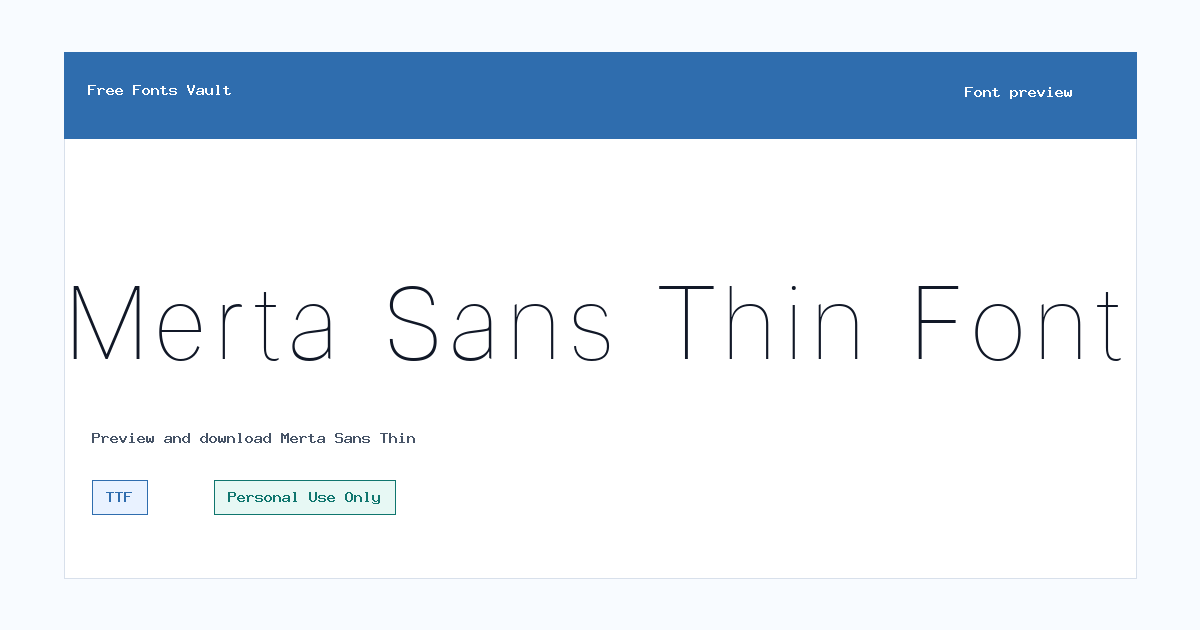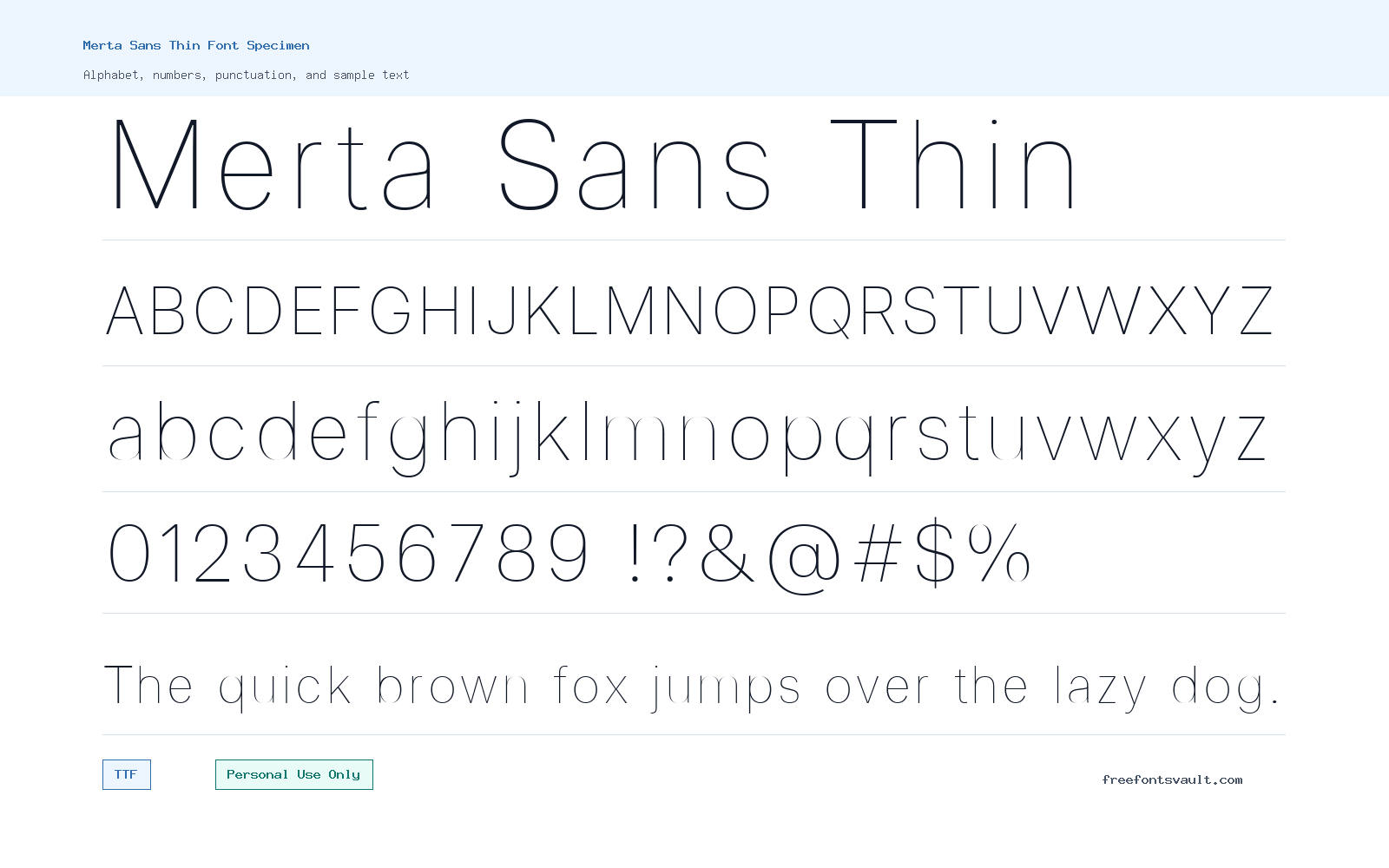
Merta Sans Thin
Merta Sans Thin font preview showing the family name
Merta Sans Thin Font
Merta Sans Thin font specimen showing alphabet, numbers, and sample text
• Designer Diki Pradipta Tri Atmojo
• Foundry Lettertype Studio Co.
Merta Sans Thin font.
Merta Sans Thin is a light-weight sans serif font with a clean, simple look suited to projects where you want the type to feel airy rather than heavy.
About Merta Sans Thin
Merta Sans Thin uses a very slim weight, which gives words a calm and modern appearance. Because the available file is the Thin style, it is best treated as a display or accent font rather than a workhorse text face. It can look elegant in large headlines, nameplates, minimal poster layouts, quote graphics, packaging mockups, and clean social media designs. At small sizes, thin strokes can lose clarity, especially on busy backgrounds or low-resolution screens, so it is worth testing your exact text in the preview before using it in a final layout.
This font is especially useful when you need a quiet sans serif title that does not overpower the rest of the design. Try it for short words, brand concept sketches, hero headings, fashion-style layouts, portfolio covers, digital banners, or presentation titles. Keep the surrounding design simple: thin fonts usually work best with generous spacing, clear contrast, and plenty of breathing room. For longer text, pair Merta Sans Thin with a more readable regular-weight sans serif or a neutral serif, then reserve Merta Sans Thin for headings, labels, or decorative emphasis.
• Thin 100-weight sans serif style with a clean, lightweight appearance
• Normal upright style suitable for titles, mockups, and display text
• Works best at larger sizes where the fine strokes remain visible
• Good fit for minimal layouts, logo drafts, posters, web mockups, and short text graphics
• Minimal logo concepts and wordmark sketches
• Poster titles, quote graphics, and clean social media images
• Website hero headings and landing-page mockups
• Fashion, portfolio, beauty, lifestyle, and editorial-style layouts
• Presentation covers, packaging drafts, and short display labels
The designer is listed as Diki Pradipta Tri Atmojo, with Lettertype Studio Co. listed as the foundry. The designer website is Lettertype Studio.
Use Merta Sans Thin at larger sizes and avoid placing it over detailed images unless there is strong contrast. Increase letter spacing carefully for uppercase titles, but do not over-track lowercase text because thin strokes can start to feel disconnected. For web mockups, test the font on both light and dark backgrounds. For logo work, use it as an early concept font and check the license before using it in any real brand identity.
What type of font is Merta Sans Thin?
Merta Sans Thin is a thin-weight sans serif font. Its light strokes make it better for display use than for long paragraphs.
What should I pair with Merta Sans Thin?
Pair it with a regular or medium-weight sans serif for body text. A simple serif can also work if you want a more editorial contrast.